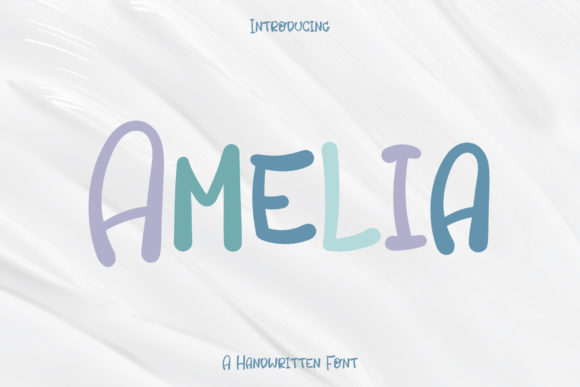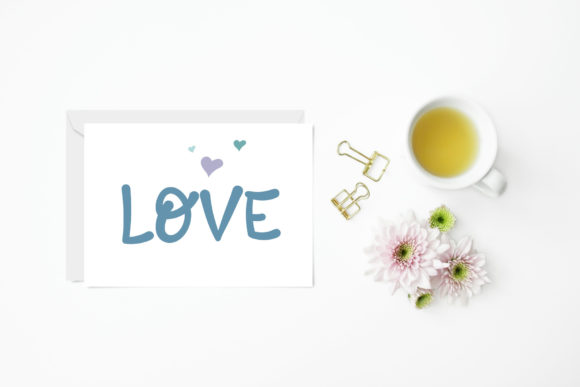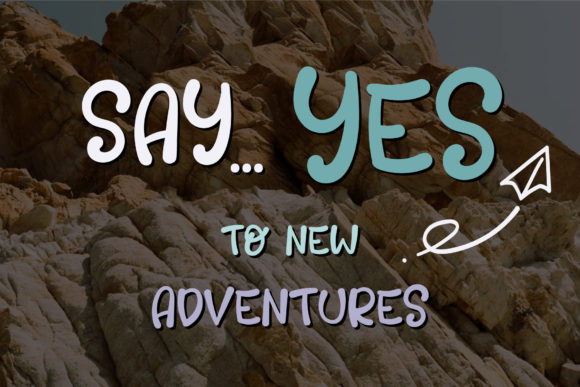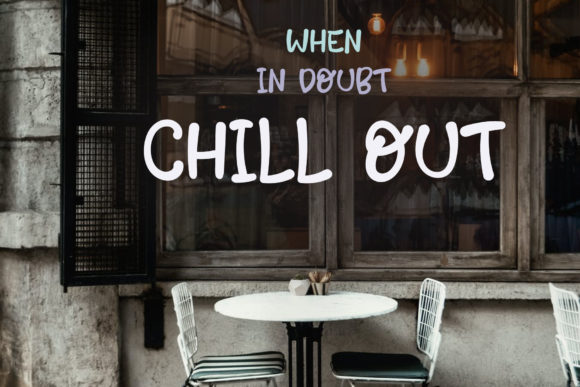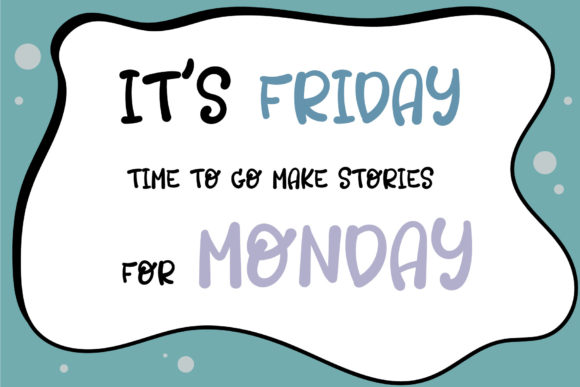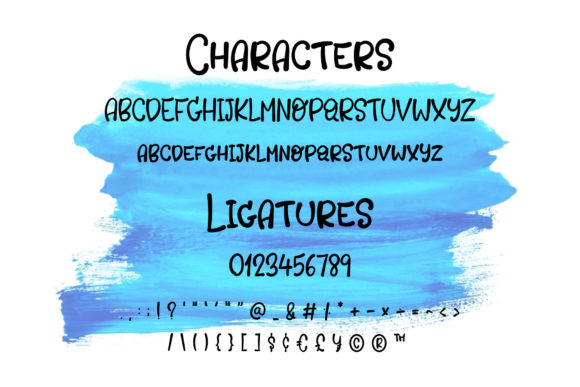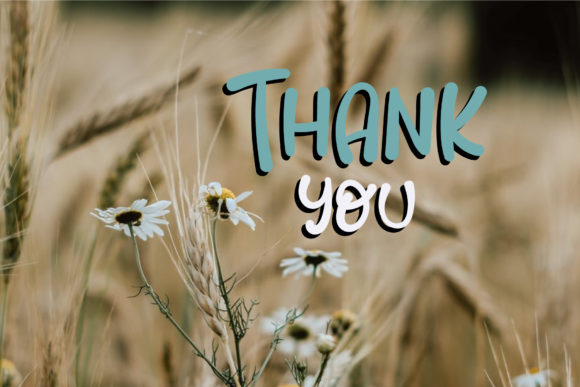
Amelia Font
About Amelia Font
Amelia is a whimsical script font with a relaxed theme, featuring a friendly style. No matter the topic, this font will be an incredible asset to your fonts’ library, as it has the potential to elevate any creation.